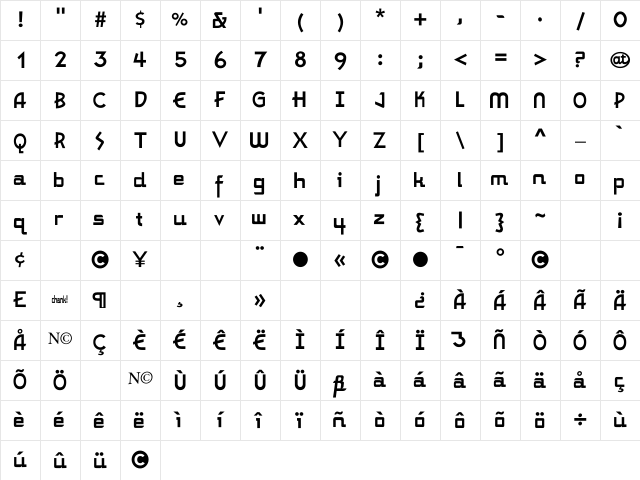
Parkway Resortotel Free Font
Parkway Resortotel
Style: Resortotel
Design Context for Parkway
Parkway is a composed and adaptable typeface that performs quietly and consistently across a wide range of design contexts.